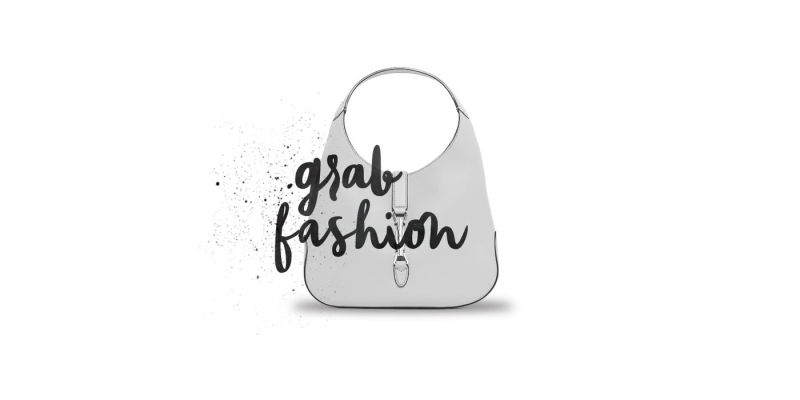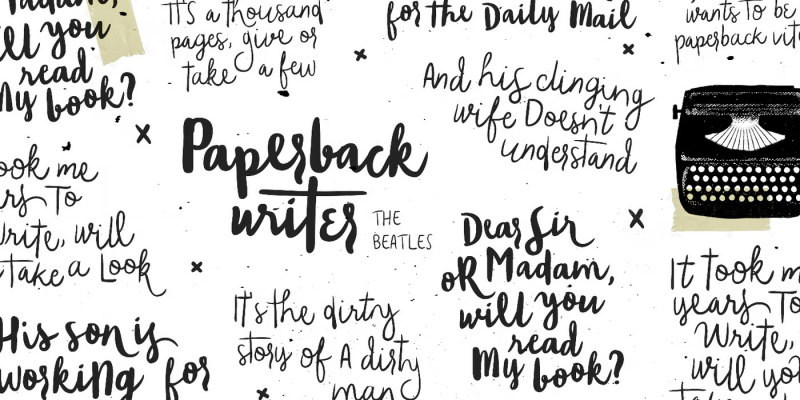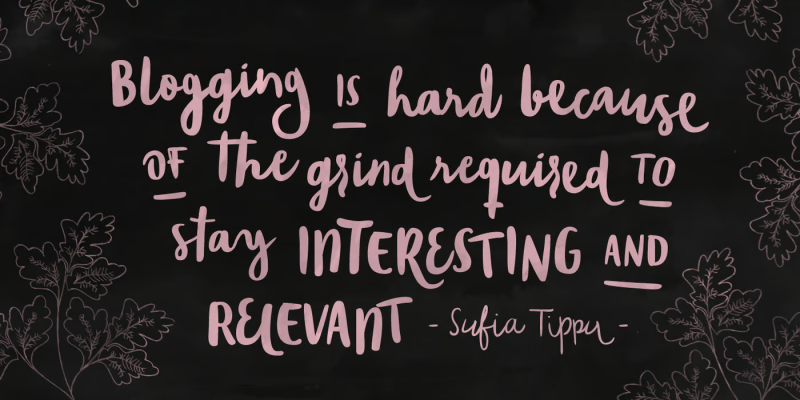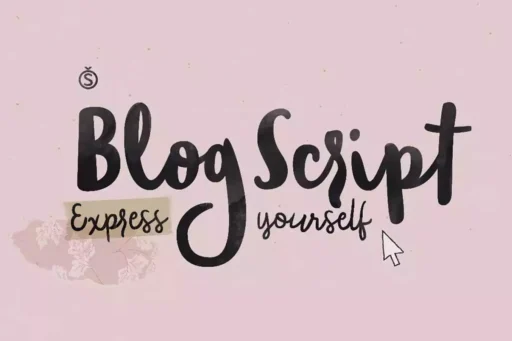
Blog Script Font
Blog Script is not just a typeface it’s a culture a way of life it encompasses the relationship between the machine and the man, the advanced and the retro. Designed by Carolina Marando and Alejandro Paul, the authors of the successful Distillery series, Blog Script reflects the trend of uniqueness in an era of social networking.
In the age of sans-serif fonts as the logos of advancement and change, Blog Script comes as a welcome style anomaly. Its flowing and flexible shapes and alternates embody a certain humanistic philosophy which appreciates the flaws as the signs of the unique and the individual.
Blog Script comes in two weights and is both practical and visually appealing. Applying this type of letterforms in your designs will make your designs more lively, more personal hence suitable for any project that wants to embrace authenticity and freedom. Whether you are writing a blog or creating a brand identity for a small cozy café or developing digital artwork, graphics, or other content Blog Script tells the story of creativity, imagination, and individuality.
Where Blog Script Font works best
Blog Script Font brings a personal, handwritten warmth to invitations, menus and place cards.
Craft brands — coffee, cosmetics, bakery — use scripts like Blog Script Font for signature-style logos and labels.
Pair Blog Script Font with a plain sans for quotes, stories and Pinterest pins that feel handmade.
What is Blog Script Font good for?
Blog Script Font is a Script And Handwritten typeface tagged Branding, Humanist, Playful, Retro. It works well for headlines, logos, posters, social media graphics and branding projects that need a distinctive script and handwritten look.